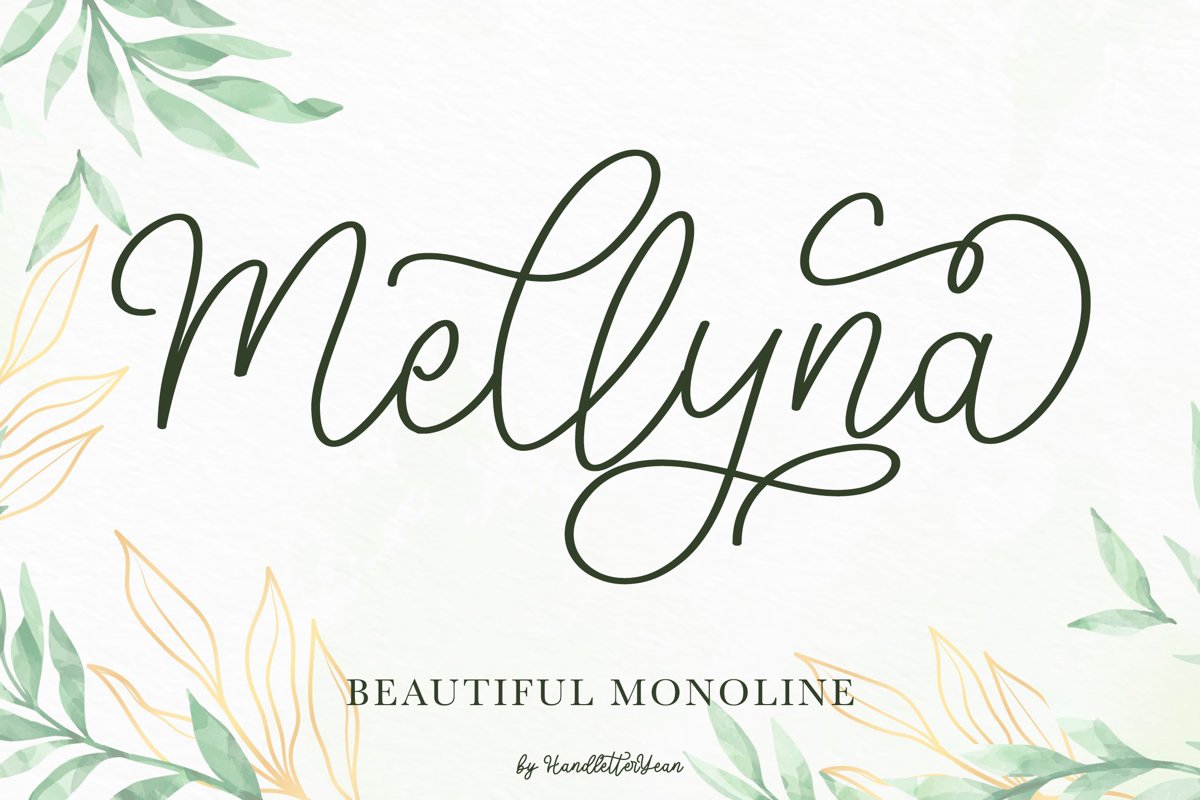
Mellyna
Mellyna is a simple yet beautiful font, this font suitable for your need of a font that shows simplicity, beauty, and distinct touch of elegance.
Be creative on using this font for your project such as invitation, logos & branding, photography, advertisements, watermark, social media posts, product packaging, greeting card, t-shirt design, product designs, labels, wedding designs, stationery, special events, or anything that needs a cute and lovely taste.